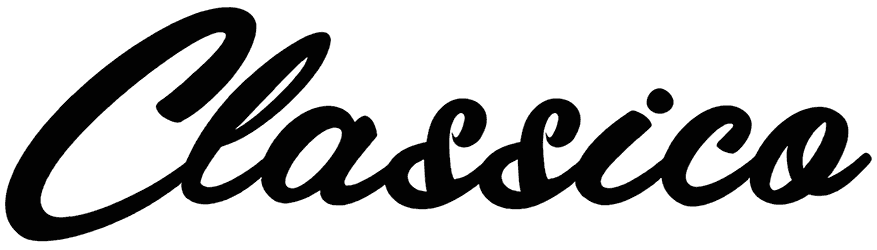
Classico Font
When you look at the Classico font, its elegant design catches your attention at first glance. This script font has an attractive personality and seems unforgettable to the viewers.
The Classico font can be helpful for various cases, such as posters, business cards, and advertisements, but it does not support numbers. This baseball font’s letters are extended and italic with soft edges, creating a friendly feeling. So take it now and make your audience stare.